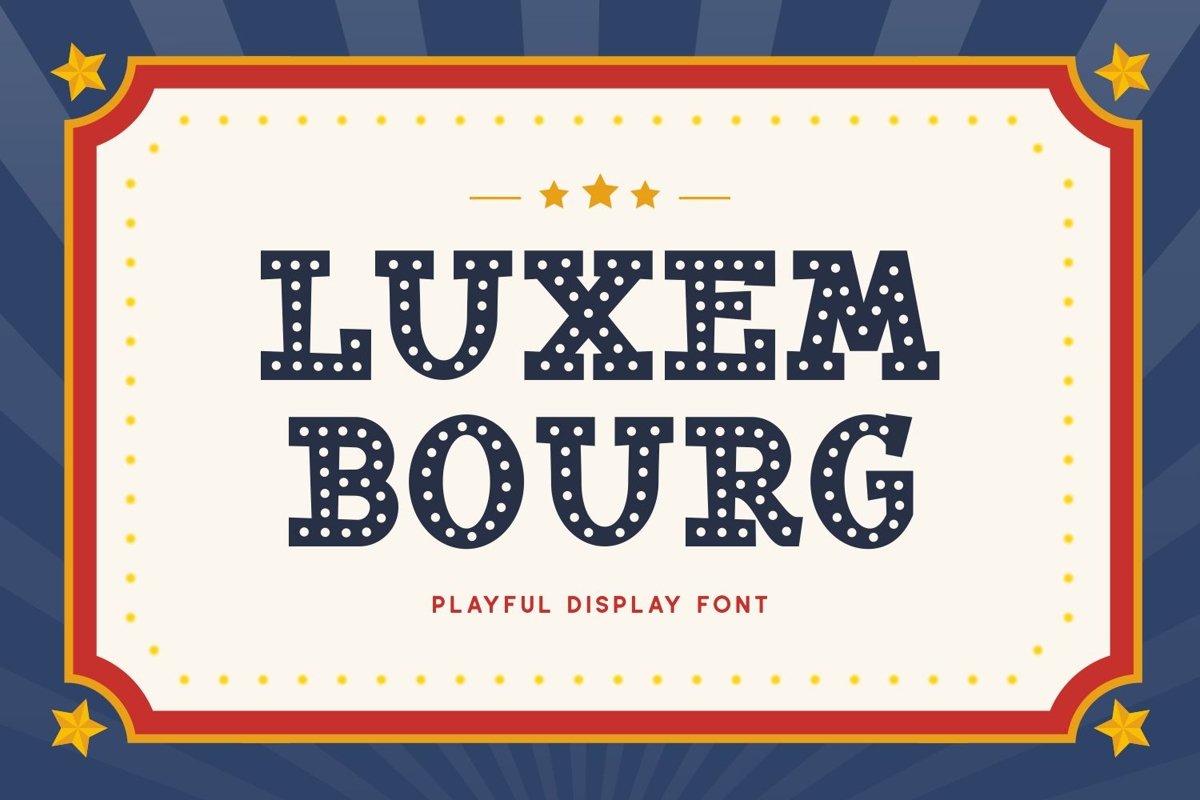
Luxembourg is a decorative serif display font come with playful themes. We wanted to create detail craft in all characters. It matches applies in some designs such as the logotype, brand, packaging, quotes, poster, kids shirt, cover book, birthday invitation and more custom design. The features uppercase, lowercase, numeral, punctuation & symbol, multilingual support, PUA encoded (fully accessible without additional design software).
Luxembourg